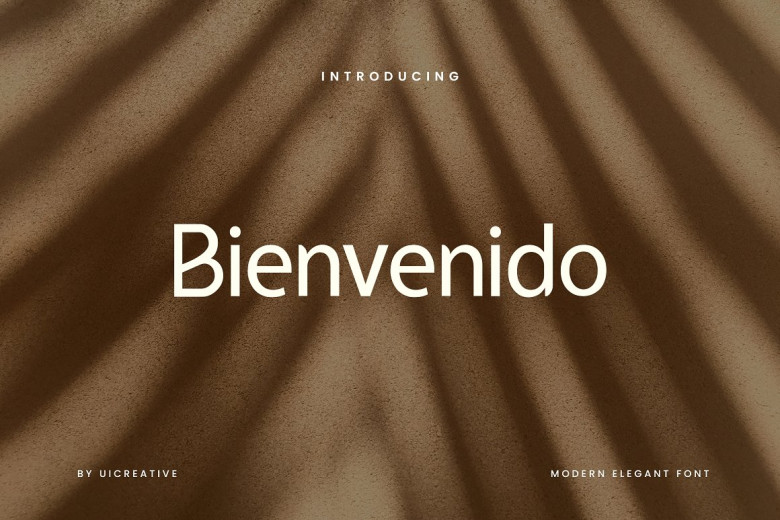
Bienvenido Font
Welcome to Bienvenido Sans Serif Font, our latest offering! This modern Serif font exudes elegance, classiness, and contemporary appeal, making it the ideal font choice for logo design, signature creation, stationery wedding invites, typography quotes magazines or book covers, website headers as well as clothing packaging design branding campaigns and much more.
Bienvenido Sans Serif Font